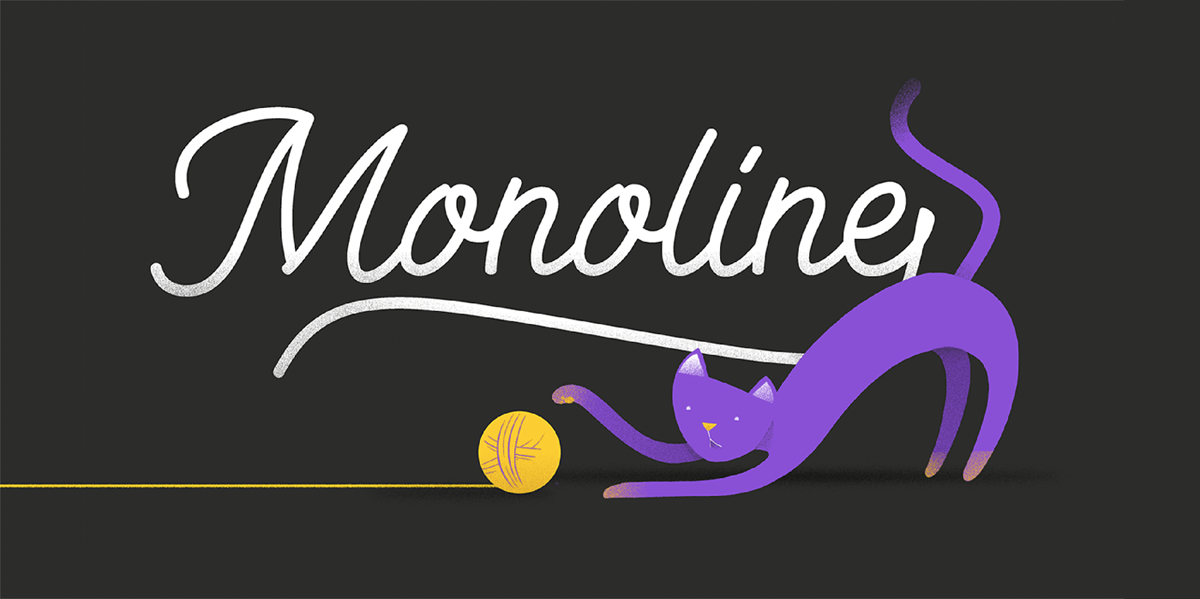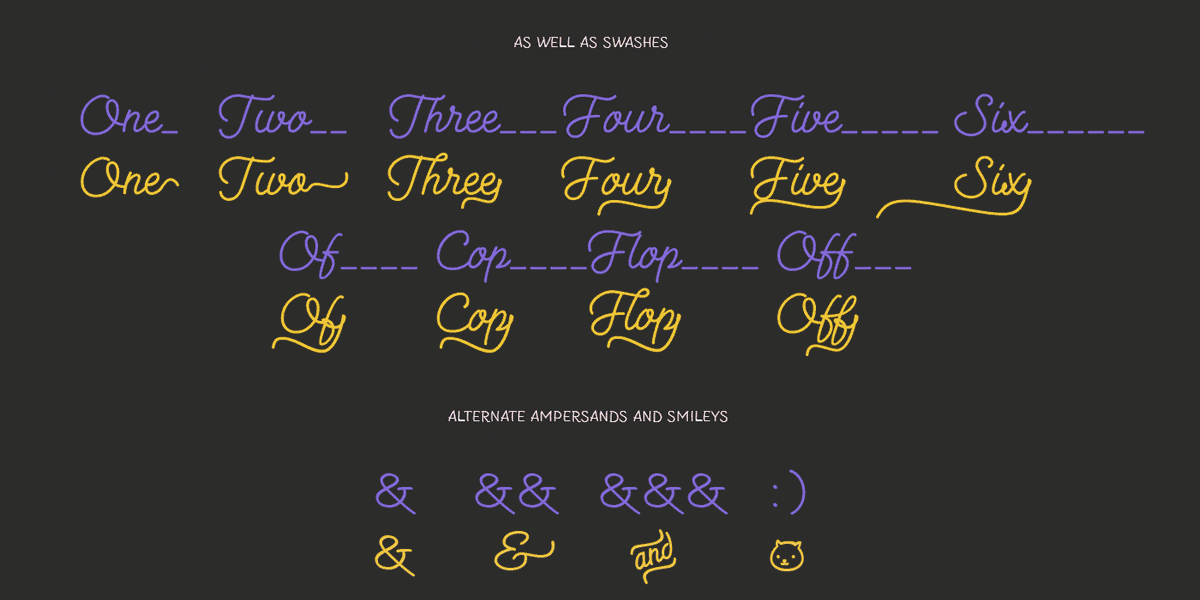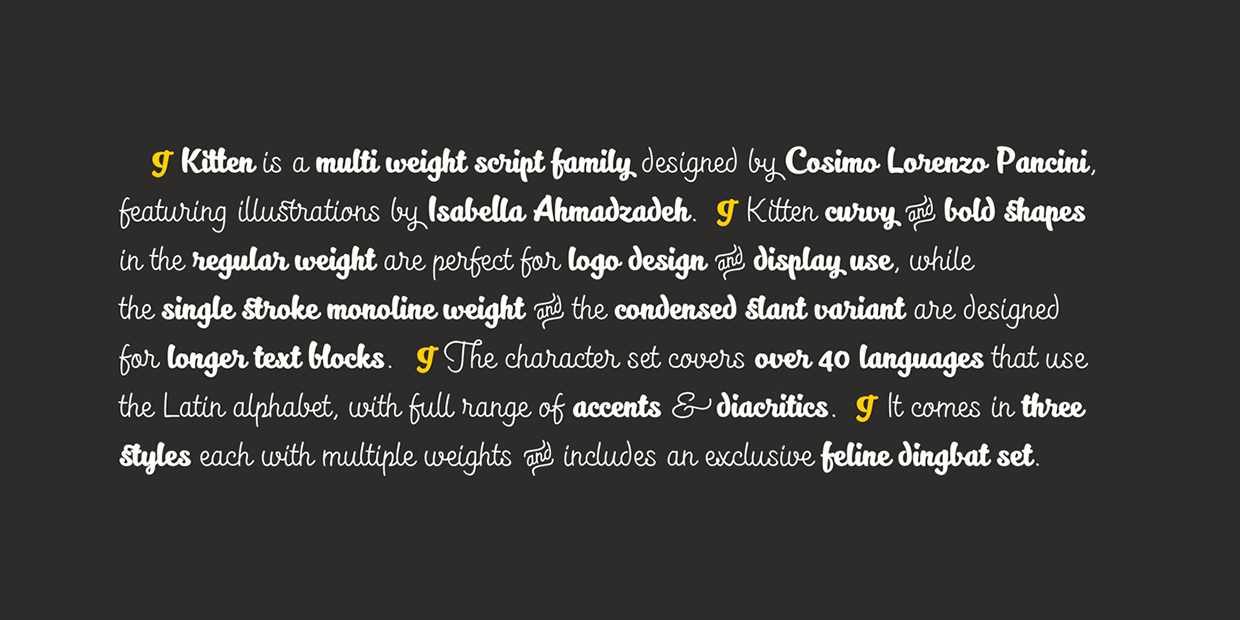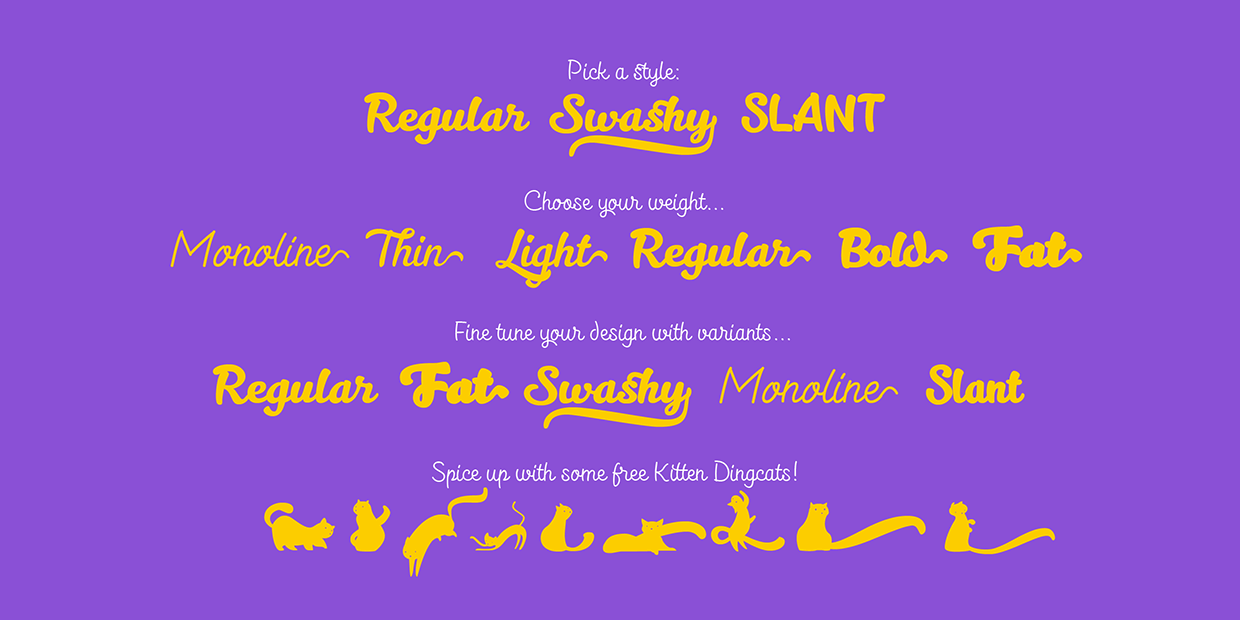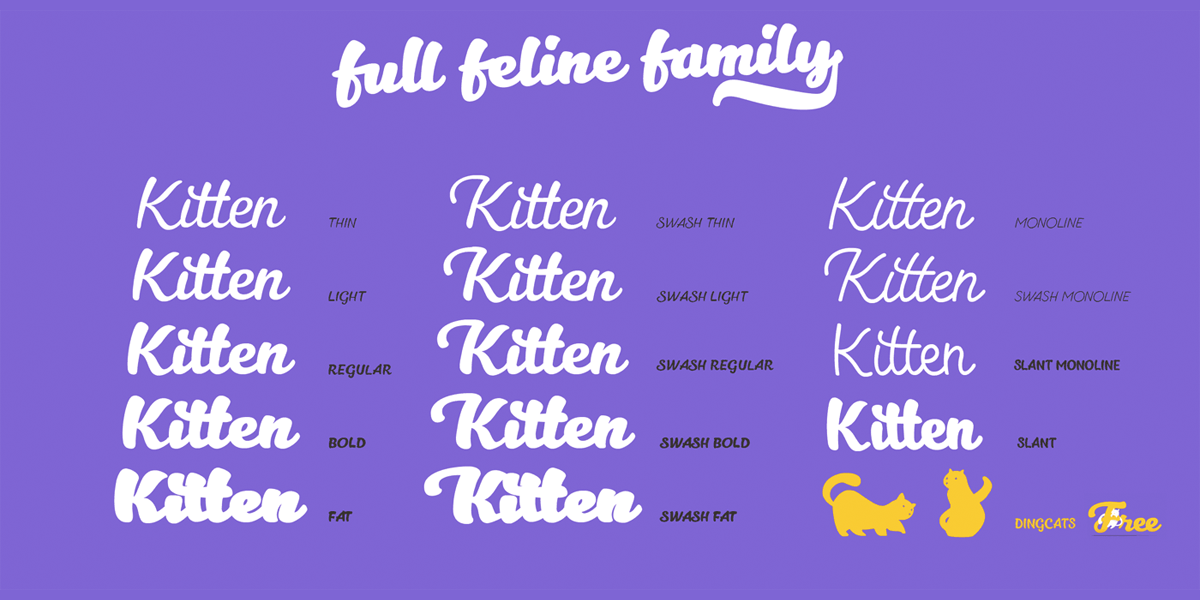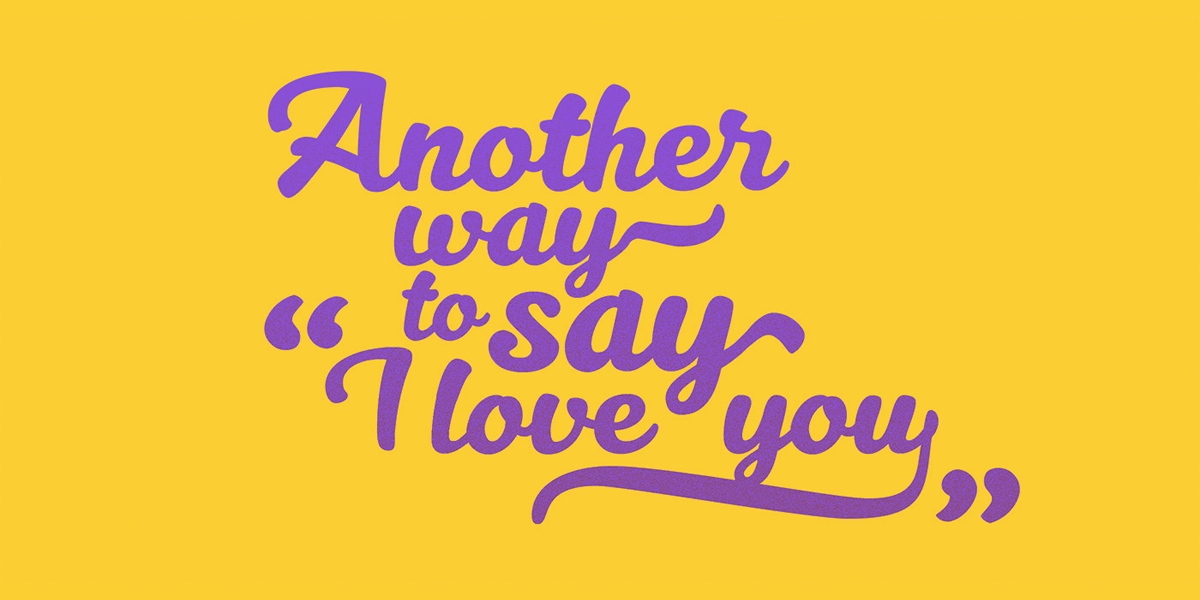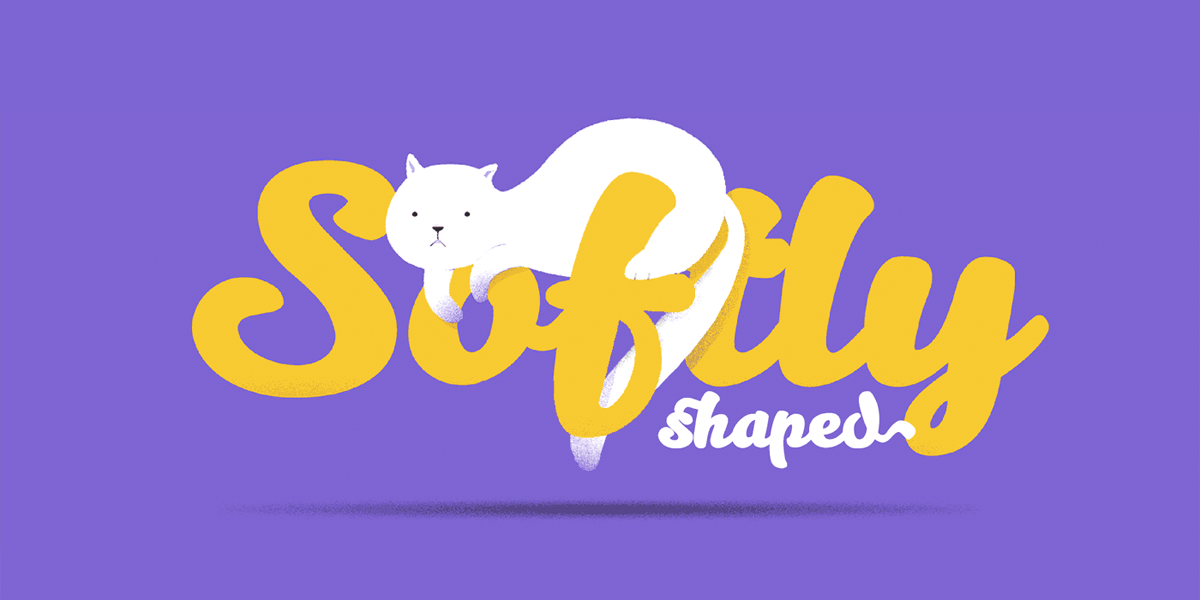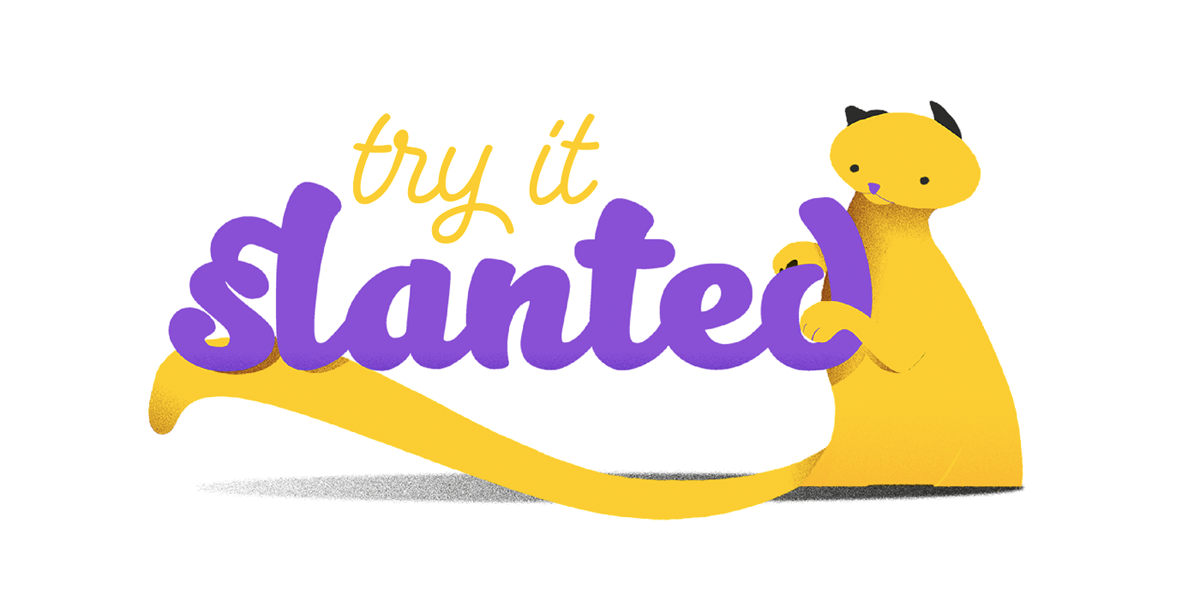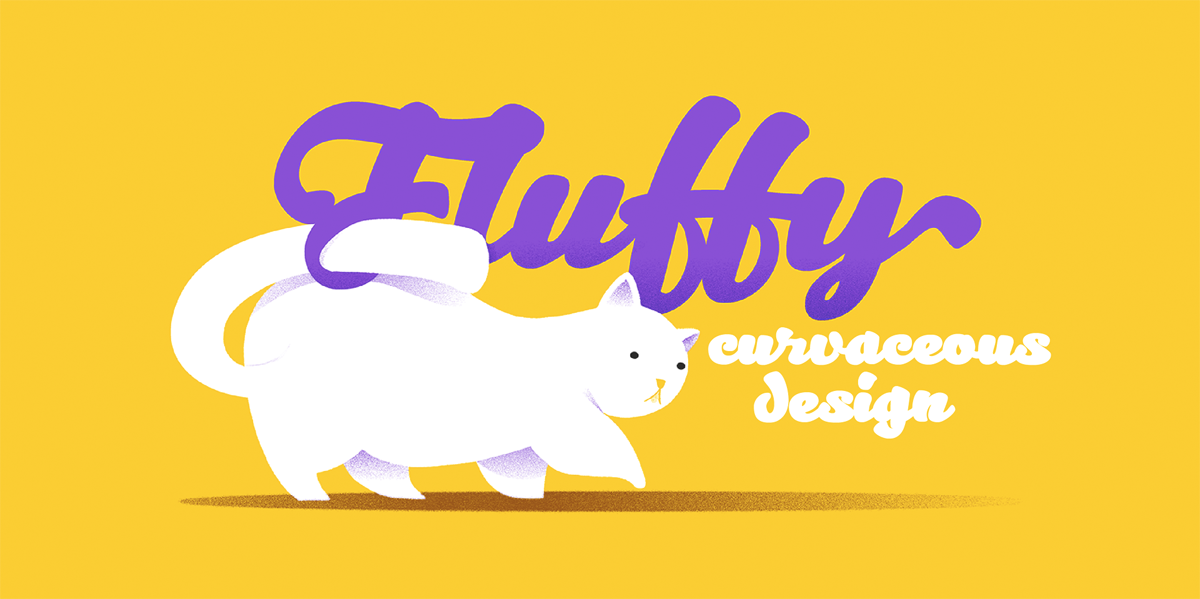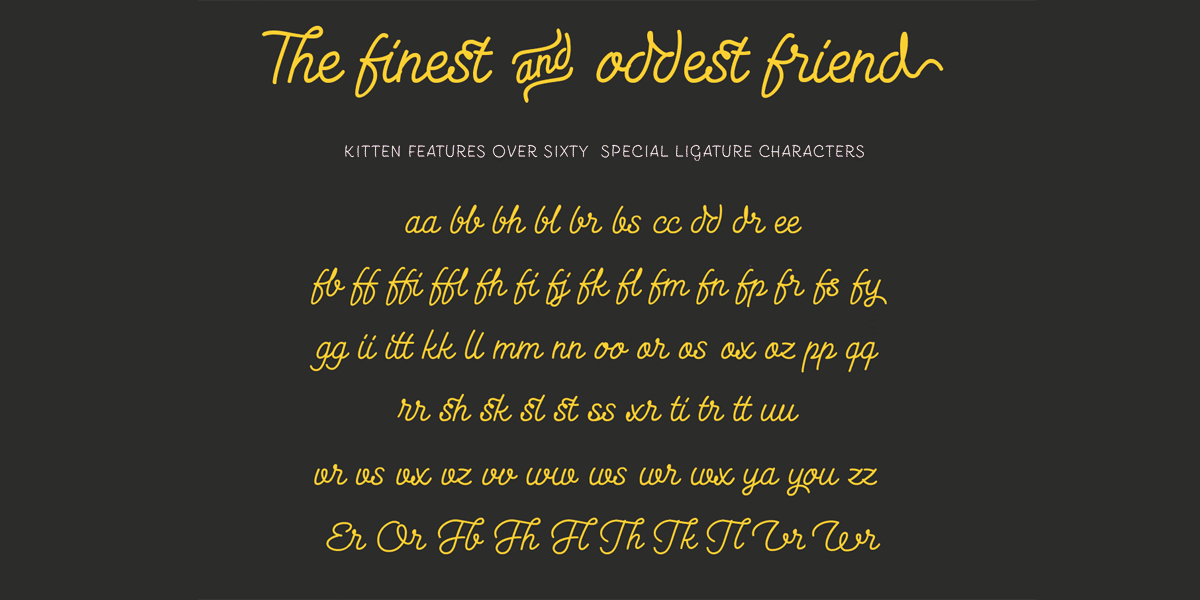
Designed by Cosimo Lorenzo Pancini released in 2016
Kitten is a multi weight script family with a signpainter aestethic and a wide range of variants, alternates and ligatures designed by Cosimo Lorenzo Pancini, with cat dingbats designed by Isabella Ahmadzadeh. Kitten curvy, bold shapes in the regular weight are perfect for logo design and display use, while the clean lighter weights, as well as the Monoline and the condensed Slant variant, are perfect for longer text blocks.
Kitten covers over 40 languages that use the Latin alphabet, with a full range of accents and diacritics. It comes in five weights and has three style variants: Regular, Slant and Swash.
Kitten makes full use of Open Type ligatures to avoid letter clashes in uppercase and provide alternates and a wide array of ligature characters for a more handmade, natural look. Swashes can be accessed through glyph palette or by typing one to six underscores after the letter. A space followed by one to eight underscores produces different cat silouhettes.